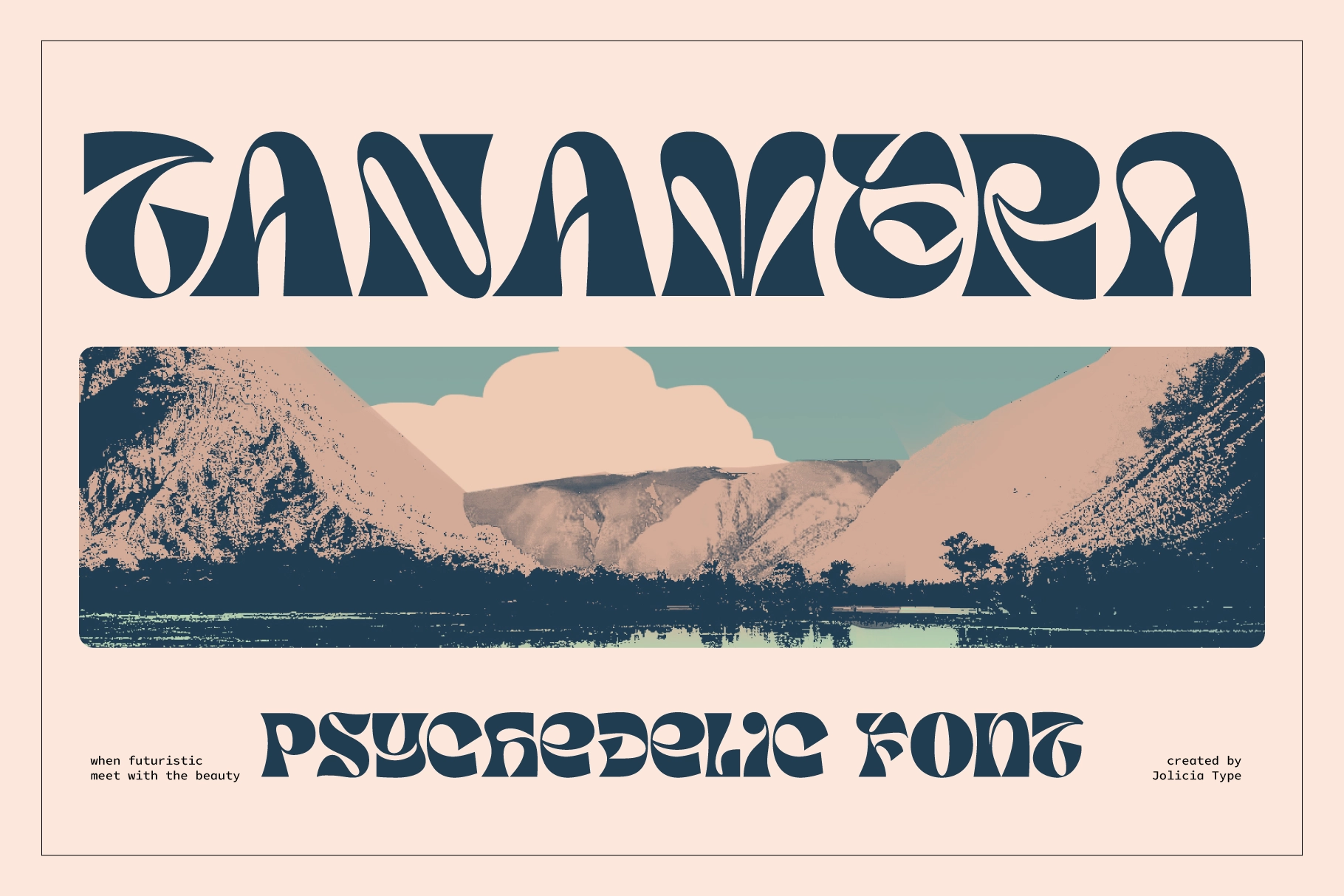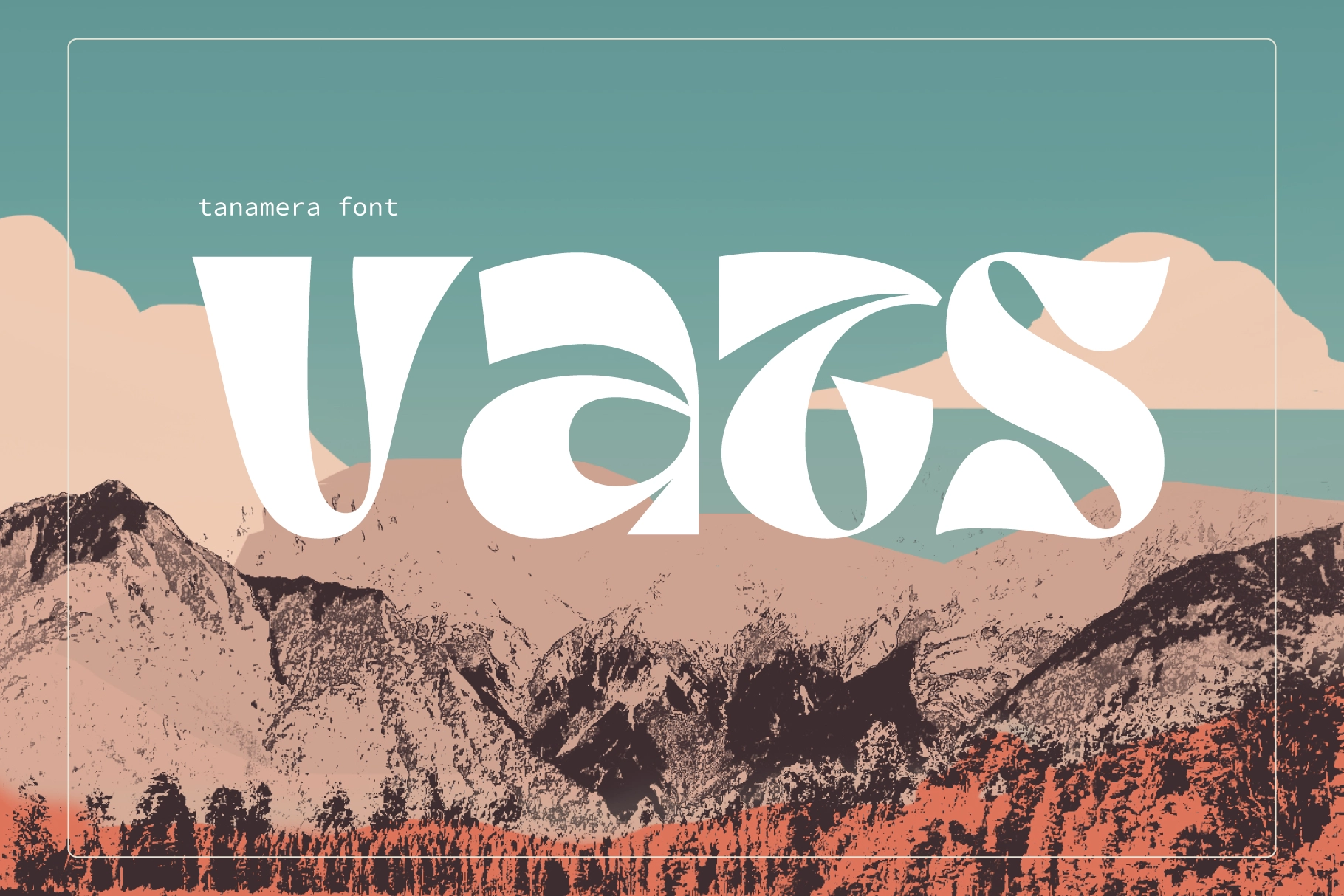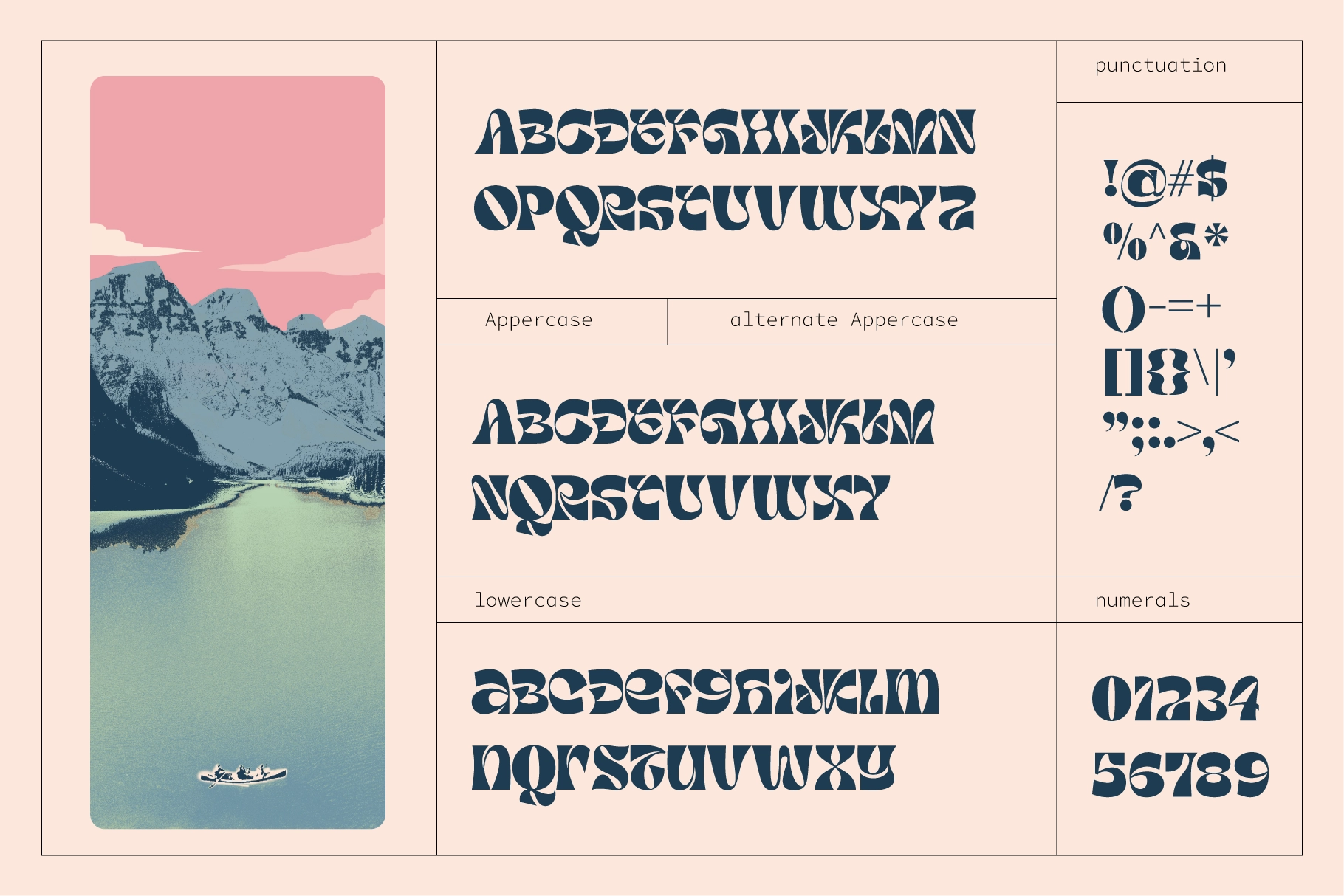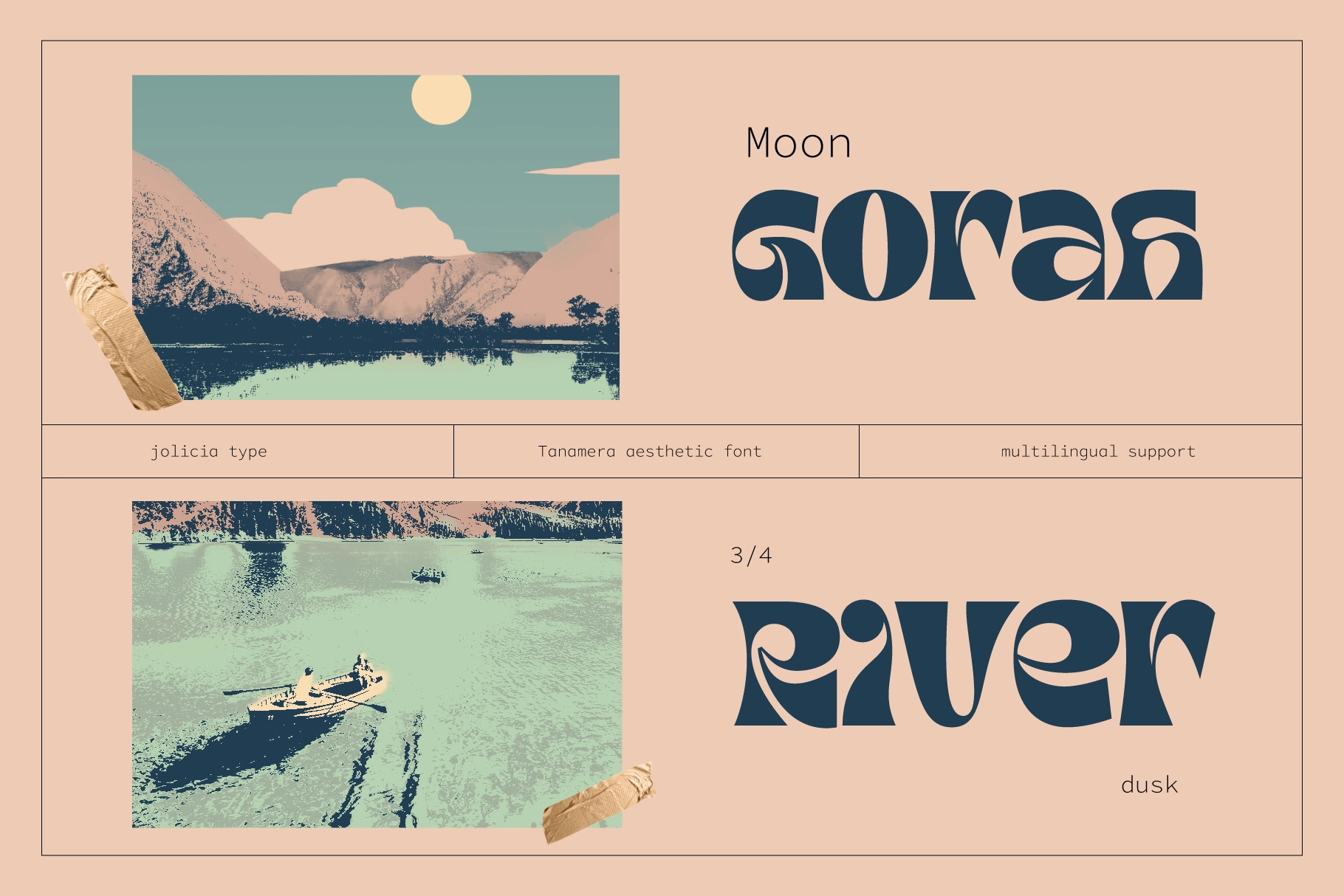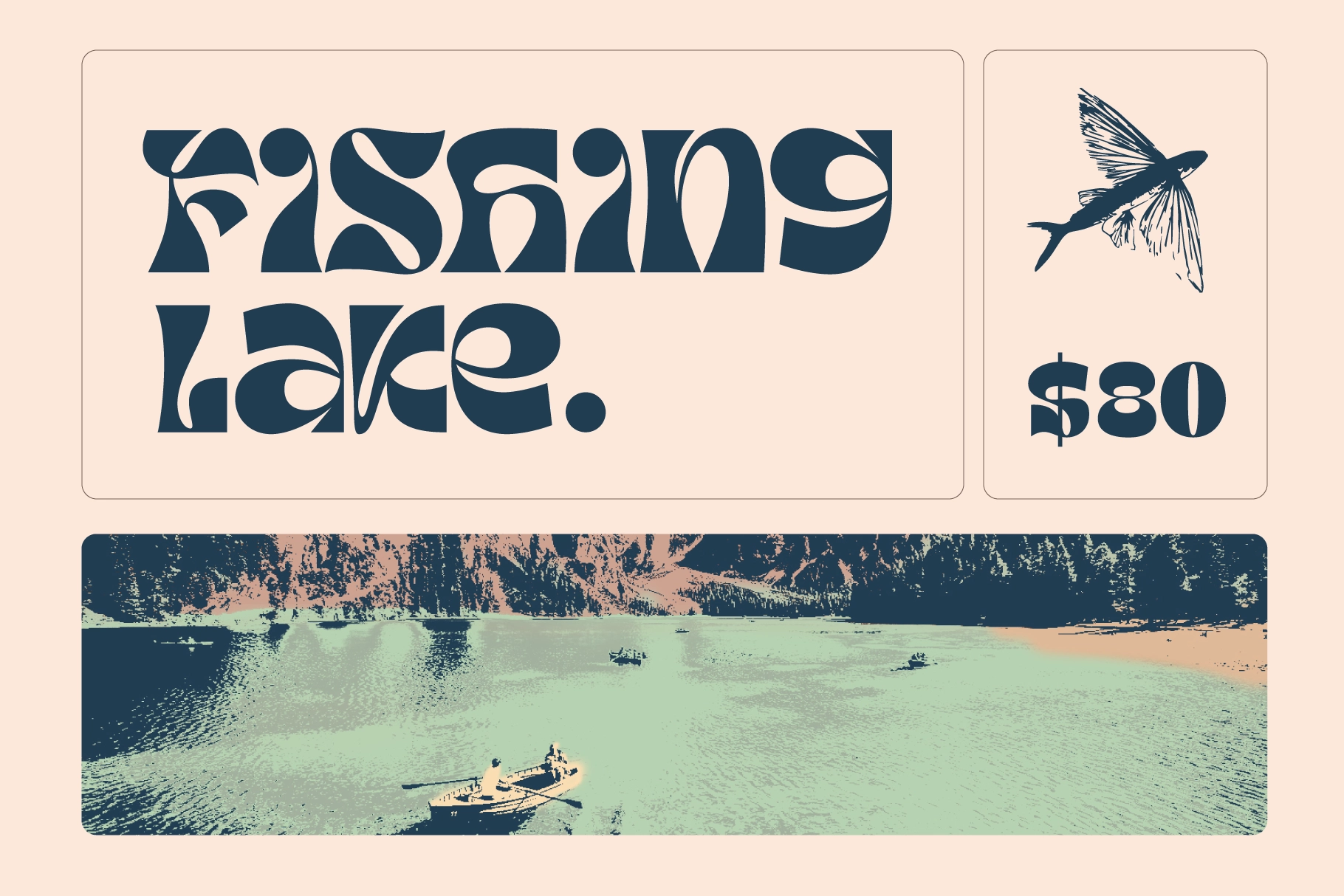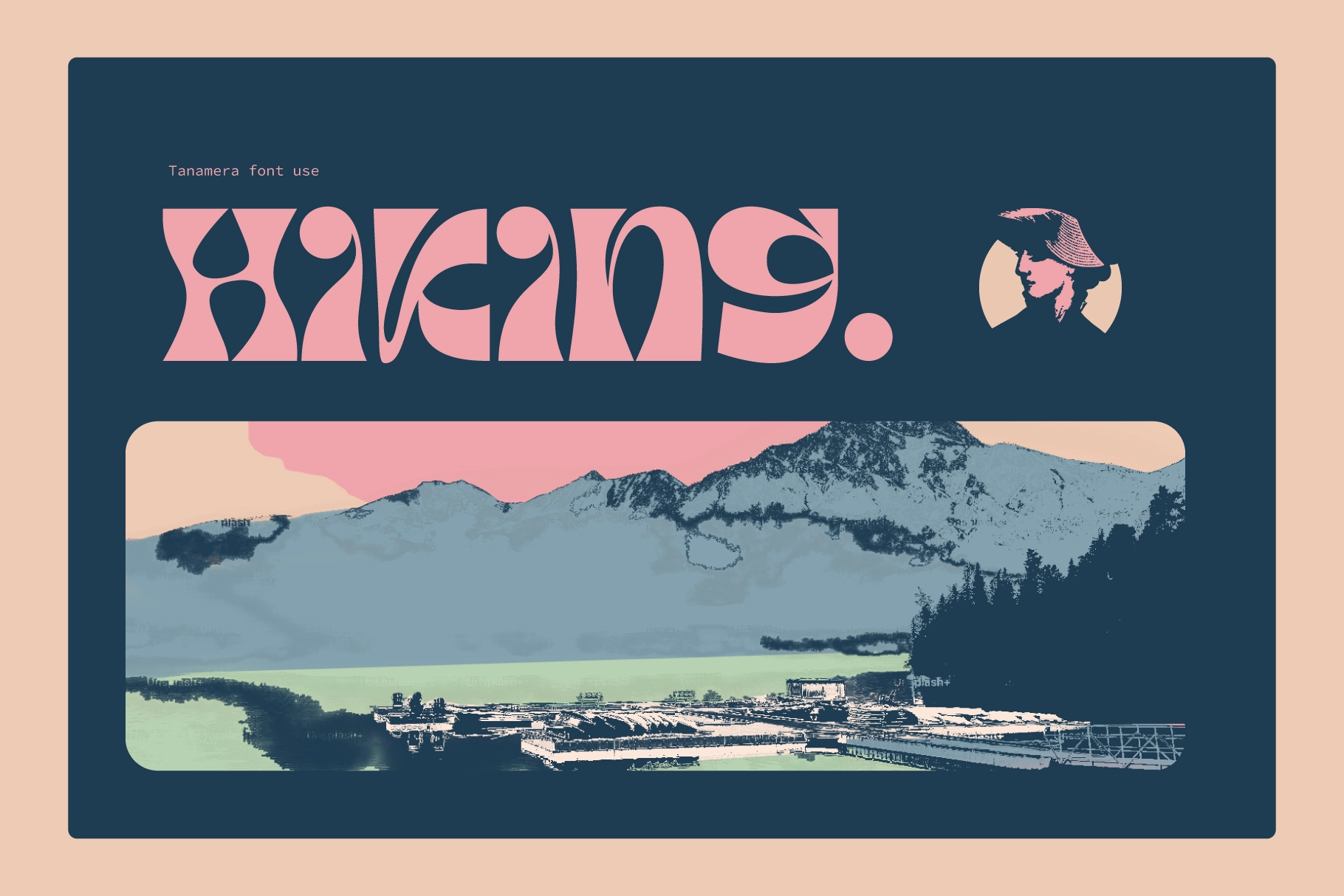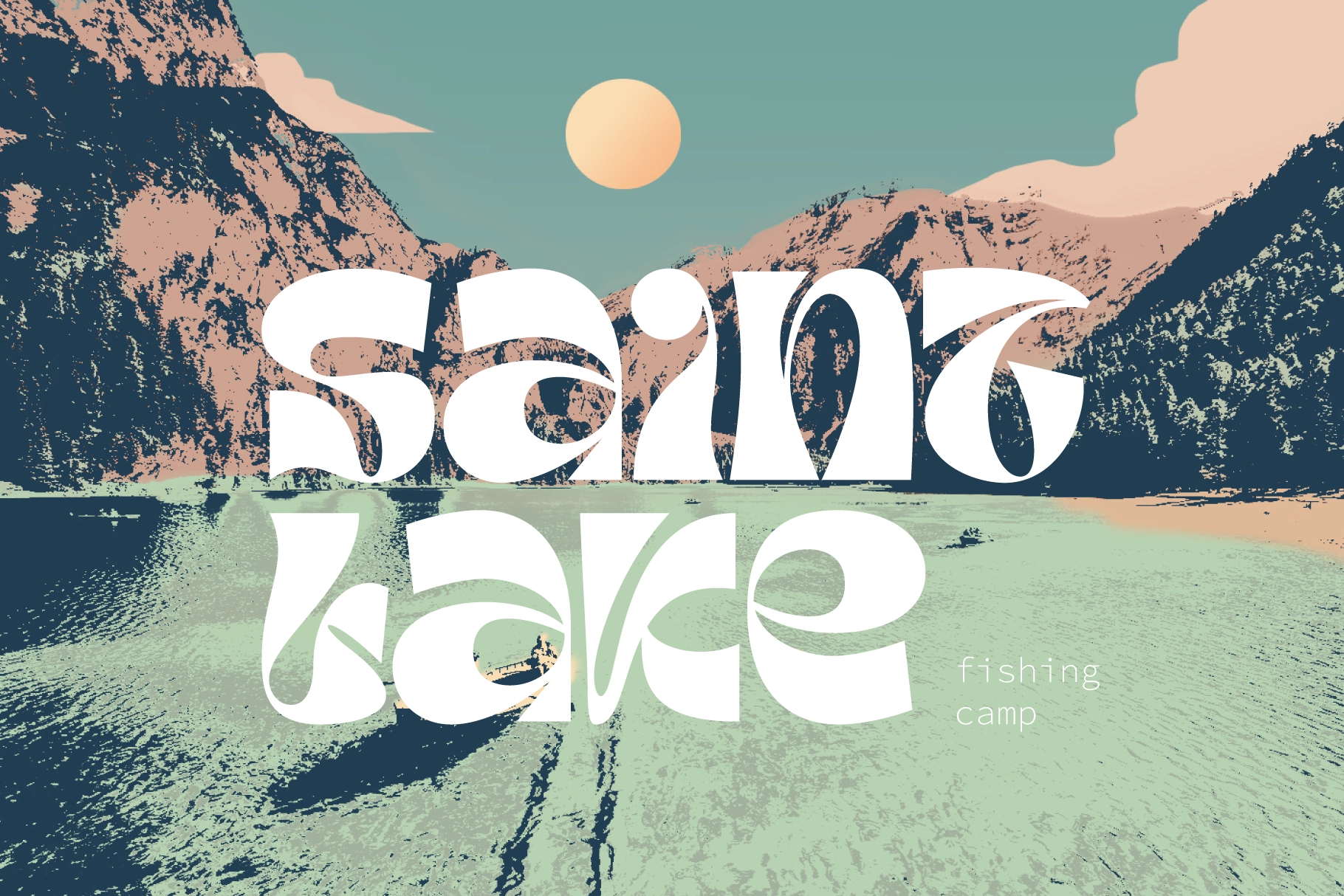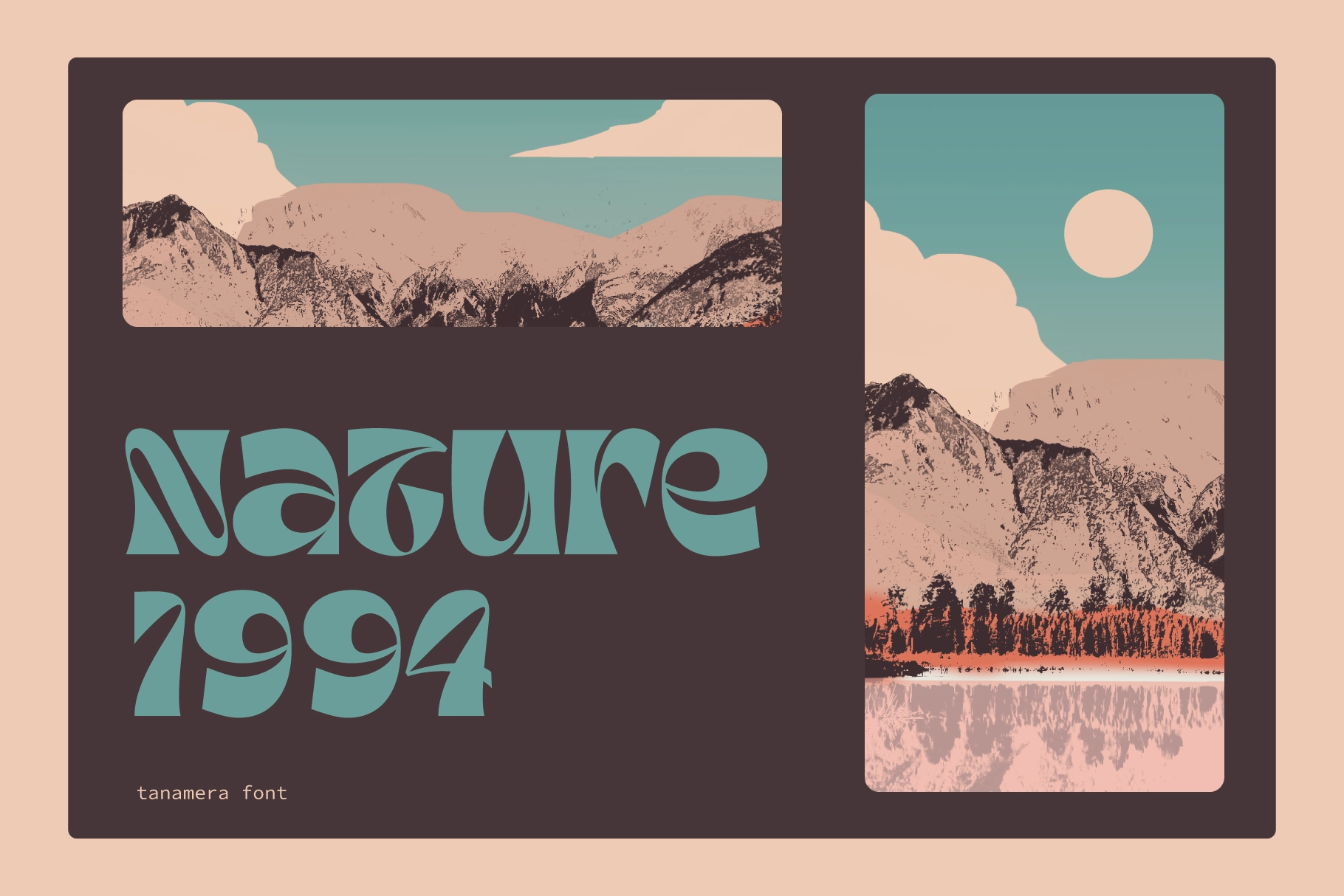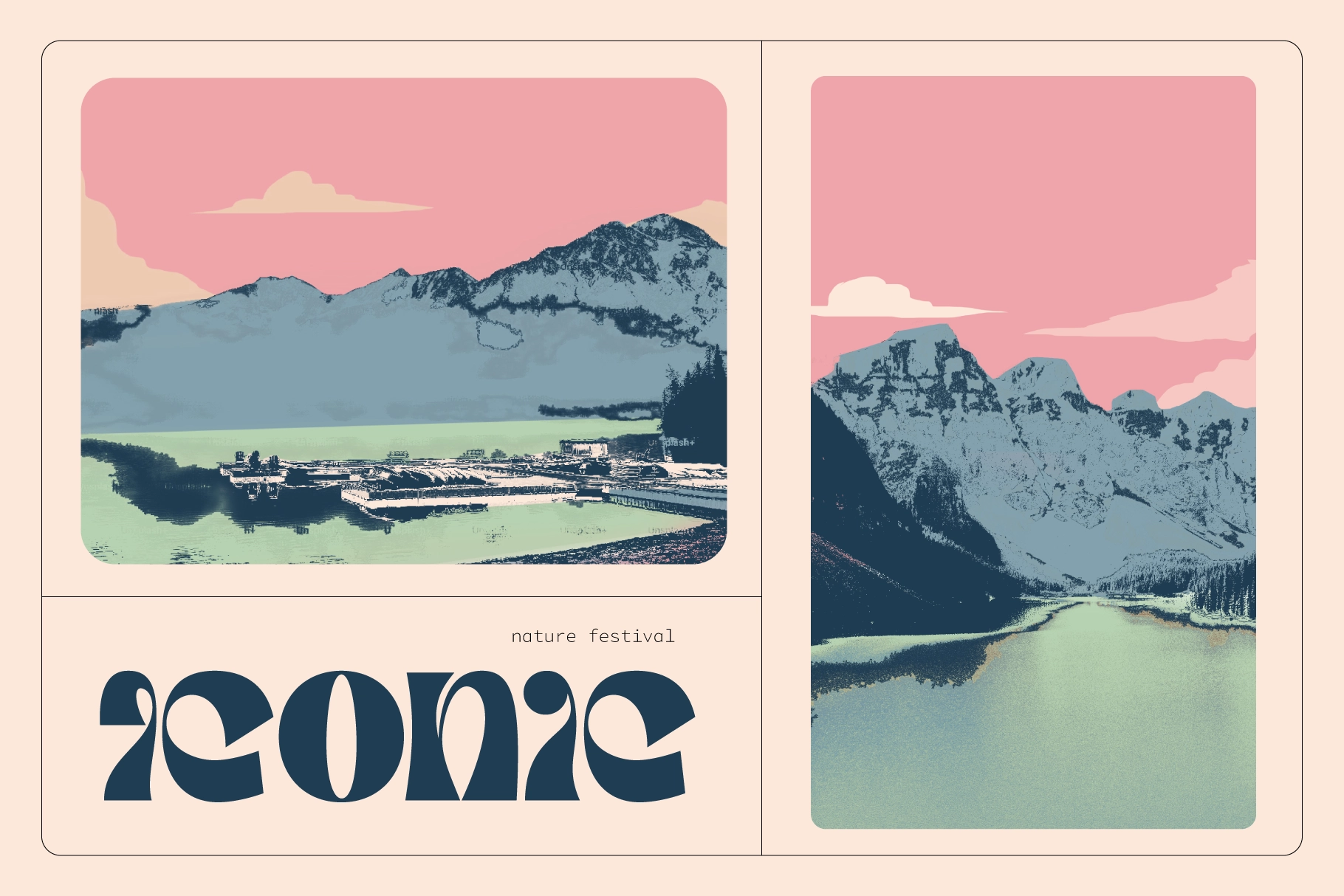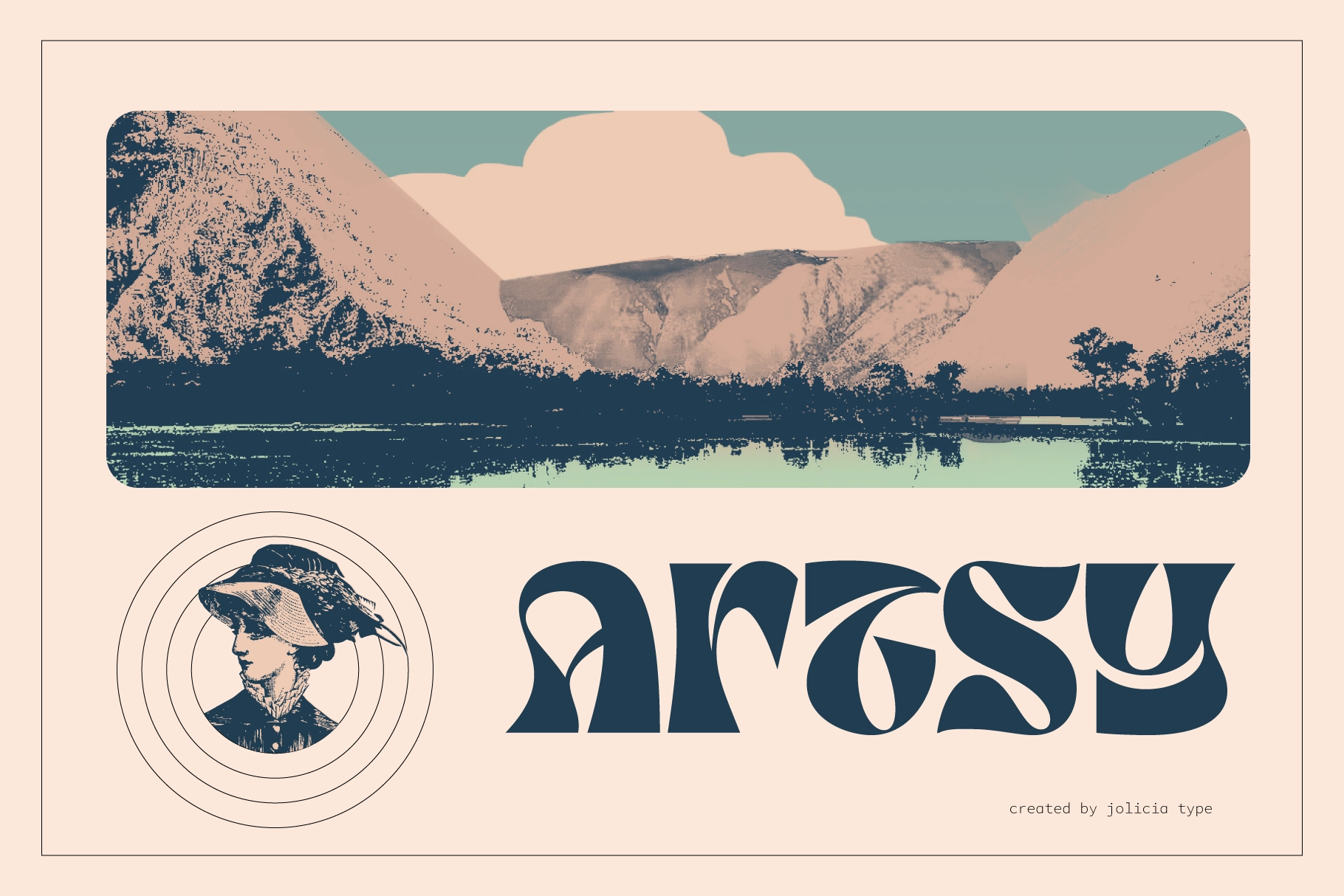
Tanamera - Psychedelic Display Font
Tanamera
This psychedelic typeface has swollen curves, sliced counters, and a soft 70s rhythm that makes every word look like it owns a record collection. The letterforms are bold and decorative, with playful cuts that add motion without turning the text into a puzzle.
Use Tanamera for music posters, album covers, festival graphics, apparel prints, logo concepts, packaging, editorial headlines, social media artwork, zines, merch drops, cafe branding, event flyers, and more. It works best at larger sizes, where the curved shapes, alternate characters, and retro attitude get proper room to misbehave.
- Alternate Uppercase
- Punctuation & Symbols